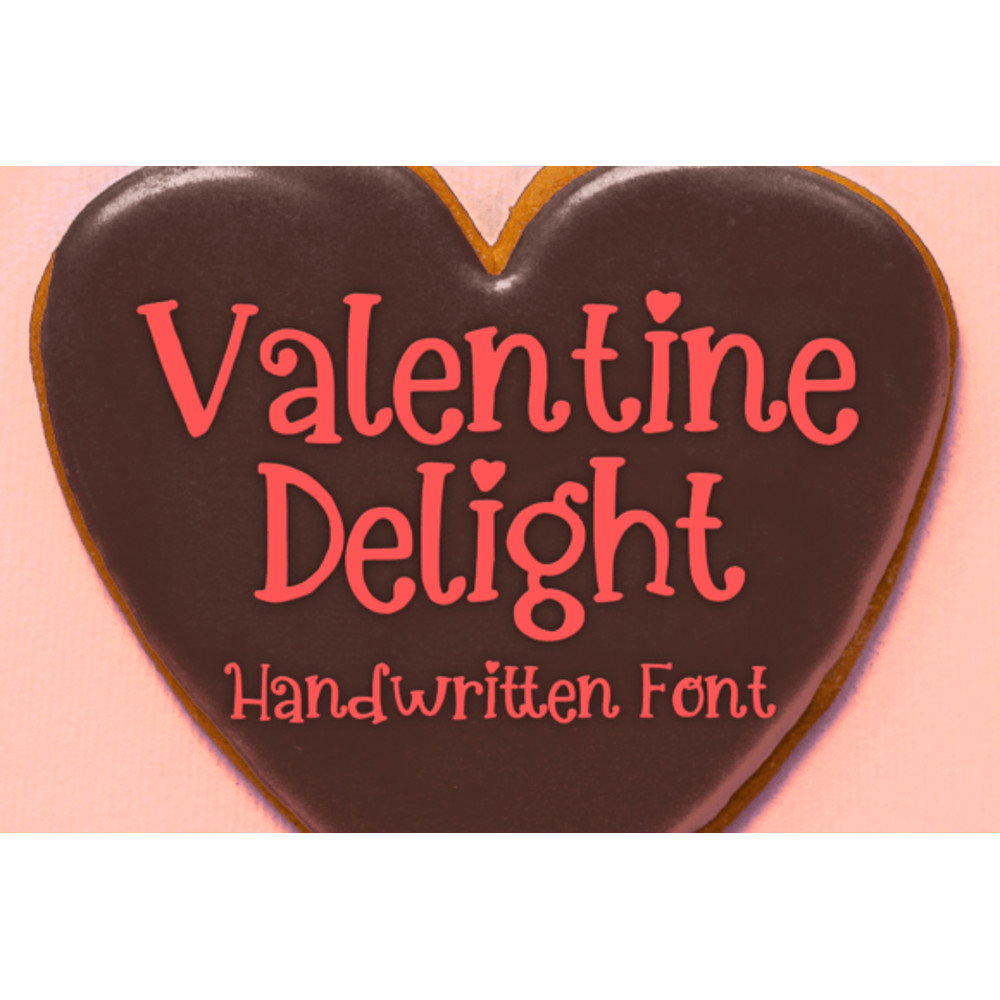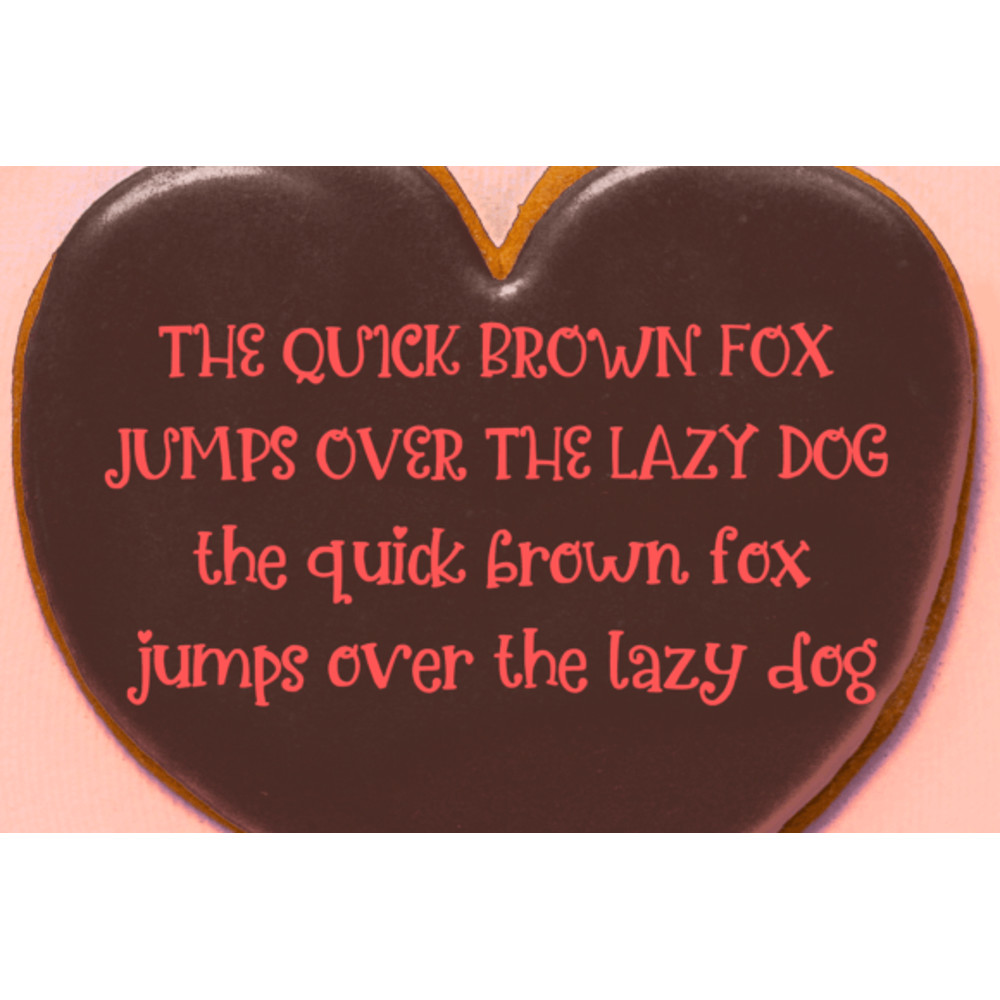
Valentine Delight Font
Valentine Delight is a cute and fancy Valentine’s Day display font. You can use it for anything ranging from t-shirts, kids’ book designs, greeting cards, stickers, and posters, or anything that needs a casual touch. Fall in love with its incredibly versatile style, and use it to create lovely designs!